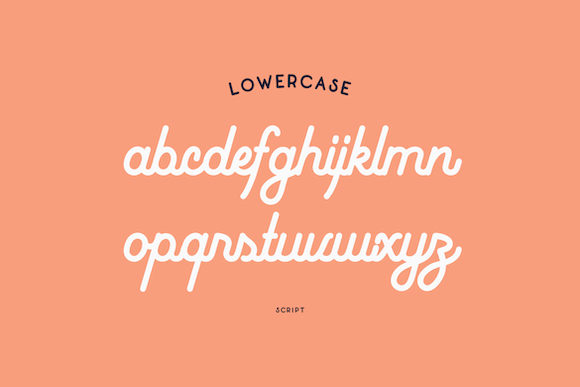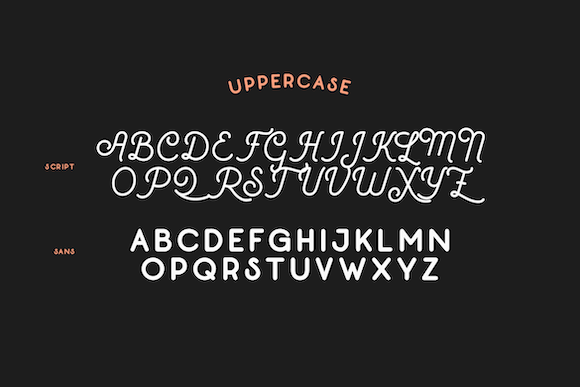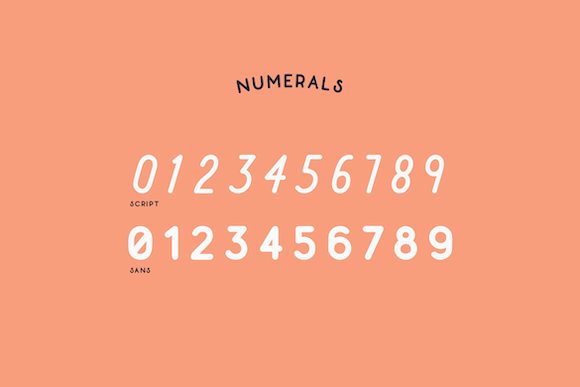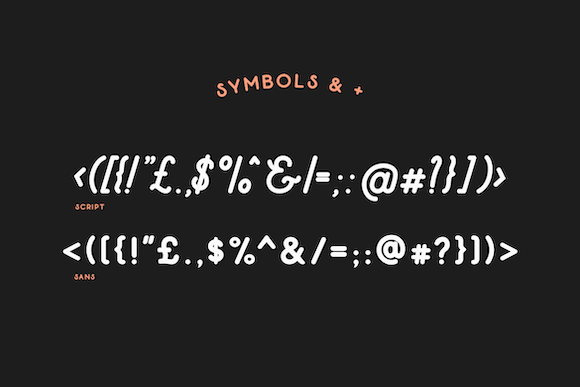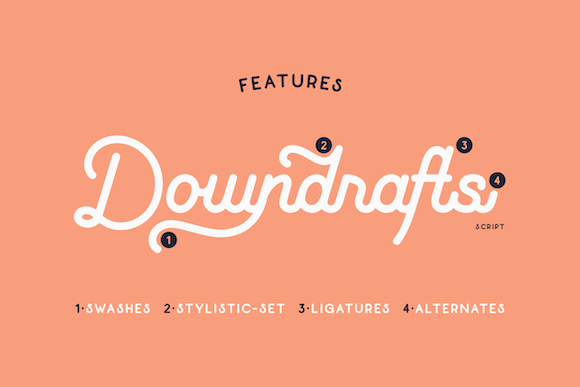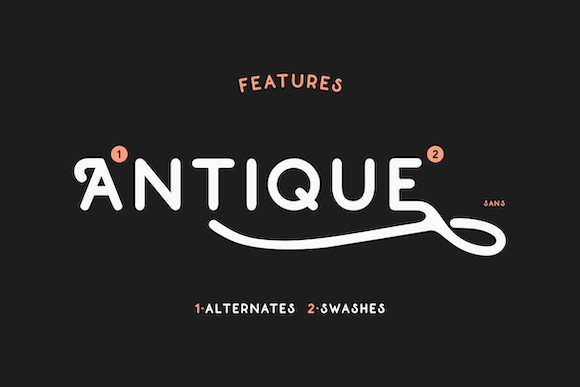
Designing with Vintage Charm
Have you ever been rummaging through your grandmother’s old trunk, uncovering forgotten photographs and dusty recipe books, only to be captivated by the elegant typography that adorns their pages? For many designers, this is the spark that ignites their passion for vintage-inspired designs.
When it comes to bringing this nostalgic charm to modern designs, the Belvedere Font duo is an excellent choice. This beautifully crafted font duo is inspired by the classic typography of the past, featuring curvy lines and elegant flourishes that evoke a sense of nostalgia and sophistication.
For designers, the Belvedere Font is a valuable addition to their toolkit, offering endless possibilities for creating eye-catching headers, titles, and designs that exude a touch of vintage elegance.
Belvedere Font Key Features
- Font Family: Belvedere Font is a high-end font family with 8 weights, ranging from Light to Black.
- Character Count: The font family contains over 1,400 glyphs, including Latin, Cyrillic, and Greek alphabets, as well as a wide range of symbols and punctuation marks.
- Resolution: Designed for high-resolution displays, Belvedere Font is optimized for use at 300 DPI and above, ensuring crisp and clear text rendering.
- Unique Characteristics: The font features a unique blend of classic and modern elements, with a focus on elegance and sophistication, making it perfect for high-end branding and publishing applications.
Belvedere Font Review
Overall, I’d say the Belvedere font is a solid addition to any designer’s toolkit. Here’s what I think:
- The font’s unique blend of modern and traditional elements makes it a great choice for projects that need a touch of sophistication.
- The Belvedere font is highly legible, even at small font sizes, which is a must for any professional font.
- The font’s wide range of weights and styles makes it incredibly versatile and suitable for a variety of applications.
- The font’s limited language support might be a drawback for designers who need to work with non-Latin scripts.
- The font’s high x-height can make it feel a bit too condensed at larger font sizes, which might not be ideal for certain applications.
Overall, I think the Belvedere font is a great choice for designers who need a high-quality, versatile font that can handle a variety of tasks. While it may have some limitations, I believe the benefits far outweigh the drawbacks.
Belvedere Font is ideal for creating elegant and sophisticated designs in Canva, such as invitation templates, business cards, and posters.
Belvedere Font is ideal for creating high-end designs in Adobe Photoshop/Illustrator, such as magazine layouts, brochures, and business cards.
Belvedere Font is ideal for creating professional presentations and documents in PowerPoint/Word, such as business reports, proposals, and resumes.
Tips for Getting the Most Out of Belvedere Font
Use Belvedere Font in combination with other elegant fonts to create a sophisticated look.
Adjust the font size and style to balance with other design elements.
Experiment with different colors and backgrounds to create a unique and eye-catching design.
Alternatives to Belvedere Font for Designers
Monserrat is a sans-serif font designed by Julieta Ulanovsky. It is a popular choice for digital products due to its clean and modern aesthetic. Montserrat is ideal for use in headings, titles, and body text where a clear and concise message is necessary.
Montserrat compares to Belvedere Font in its clean and modern design, but has a more geometric and industrial feel. Montserrat is more suitable for digital products, while Belvedere Font is often used in luxury and high-end branding.